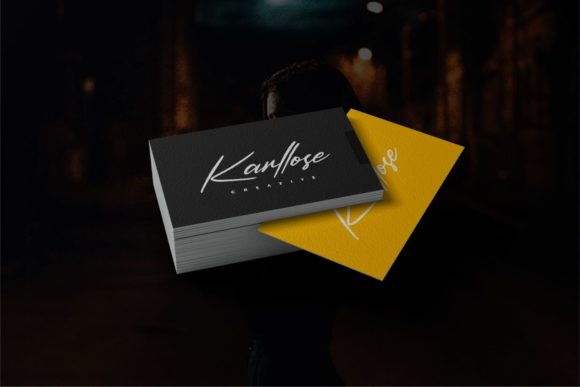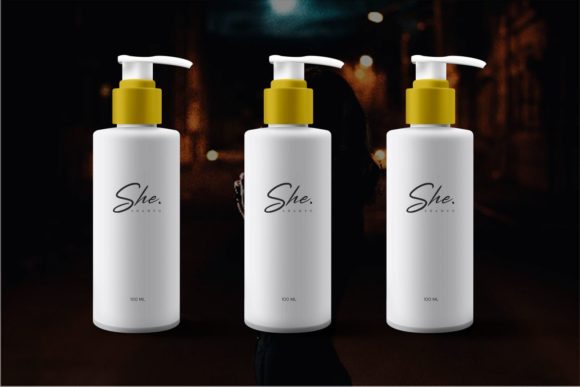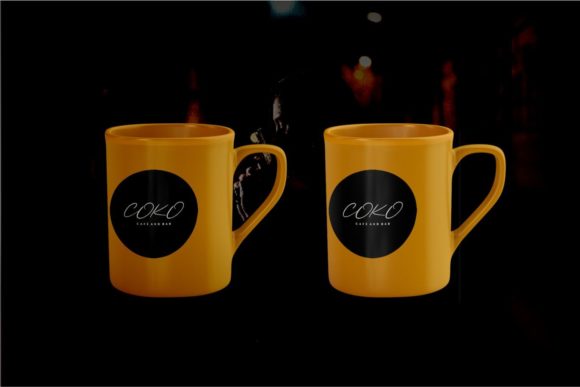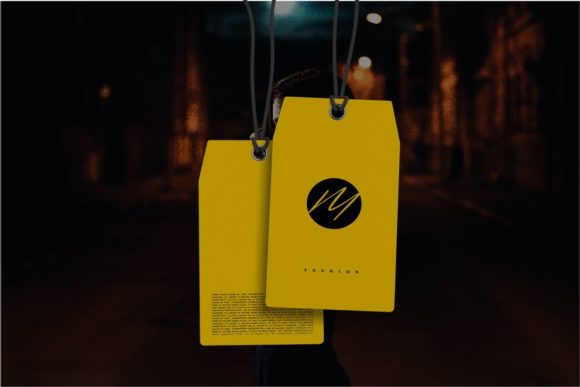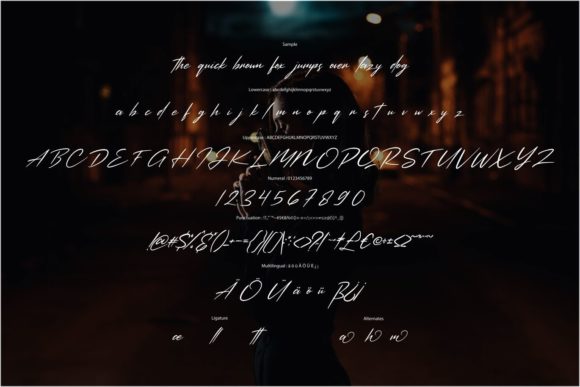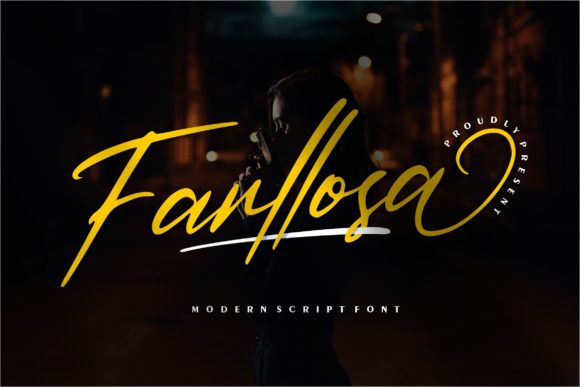
The Elusive Perfect Font: My Journey with Farllosa
Ah, the perfect font – a designer’s holy grail. I’ve lost count of how many projects I’ve worked on where finding the right typeface has been a daunting task. I recall a particularly frustrating experience where I was designing a wedding invitation suite for a client. She had a clear vision of what she wanted: elegant, modern, and sophisticated. I spent hours scouring font libraries, but nothing seemed quite right. That was until I stumbled upon Farllosa.
First Impressions: A Love Affair with Farllosa
As soon as I opened Farllosa in my font editor, I knew I had found something special. This beautiful and refined script font exuded a classy, elegant, and modern look that perfectly captured my client’s vision. I was immediately drawn to its versatility – Farllosa can be used for logos, branding, invitations, stationery, wedding designs, social media posts, and much more!
What I Love About Farllosa ✨
- 💫 Elegant and modern design that’s perfect for high-end projects
- ✅ Highly versatile – works well for both digital and print applications
- 🌈 Beautifully crafted with attention to detail, making it a joy to use
- 📈 Excellent for branding and logo design, as it offers a unique and sophisticated look
- ⚠️ Some users might find the font a bit too refined or delicate for certain projects
- 🕰️ Depending on your design software, you might need to adjust settings to access all OpenType features
Exploring Alternatives: Similar Fonts to Farllosa
The Story Behind Farllosa: Designer Inspiration
Farllosa was crafted with the goal of creating a versatile, elegant script font that could be used across various design applications. While the specific designer behind Farllosa might not be widely known, it’s clear that they were driven by a passion for typography and a desire to create something truly special. The result is a font that exudes sophistication and class, making it a valuable addition to any designer’s toolkit.
Frequently Asked Questions About Farllosa
| What type of projects is Farllosa best suited for? | Farllosa is highly versatile and can be used for a wide range of projects, including logos, branding, invitations, stationery, wedding designs, and social media posts. |
| Is Farllosa suitable for body text? | While Farllosa is primarily designed as a display font, it can be used for short paragraphs of body text. However, for longer texts, a more traditional serif or sans-serif font might be more suitable. |
| Does Farllosa support OpenType features? | Yes, Farllosa supports OpenType features, including glyphs, stylistic alternates, and more. This allows for a high degree of customization and flexibility in your designs. |